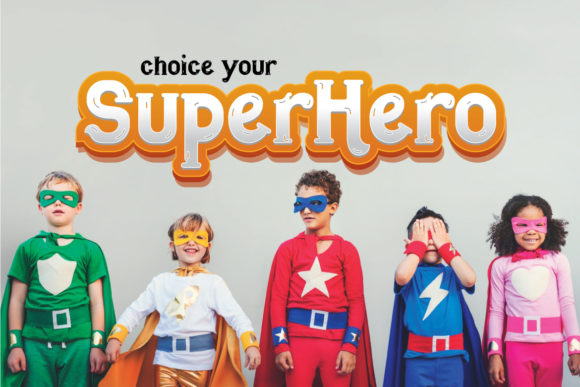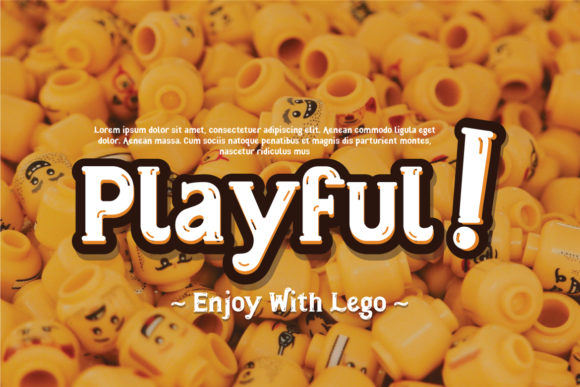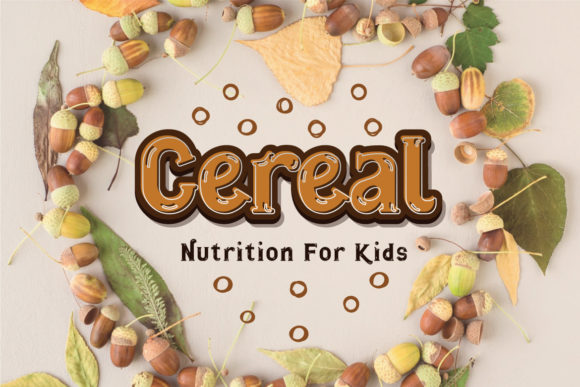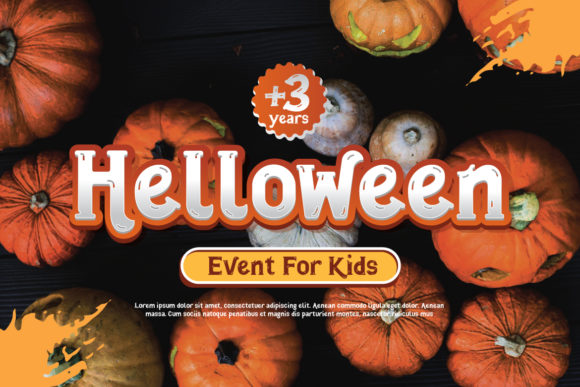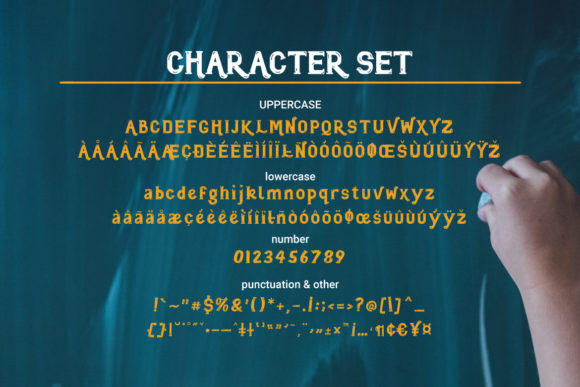
Introduction to Milk Nut Font
Milk Nut is a playful, yet fancy serif font.
It will add a joyful feel to any design project .
Key Features of Milk Nut Font
Why Choose Milk Nut Font?